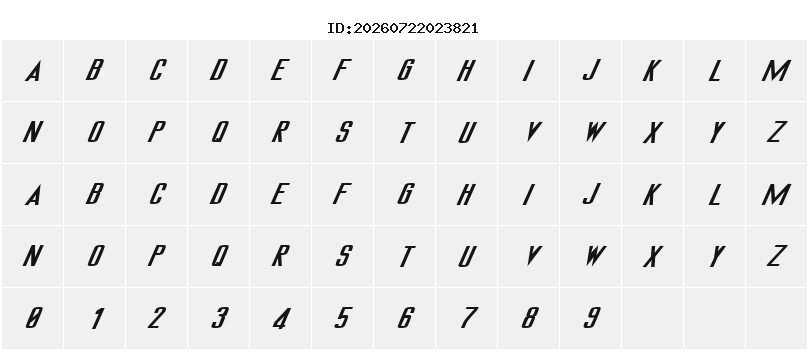
FZ BASIC 32 ITALIC Preview
• Font Name: FZ BASIC 32 ITALIC
• Full Font Name: FZ BASIC 32 ITALIC
About FZ BASIC 32 ITALIC.ttf
FZ BASIC 32 ITALIC.ttf is a modern, elegant sans-serif font designed for ultimate readability and visual harmony. Perfect for branding, headlines, web design, and print materials.